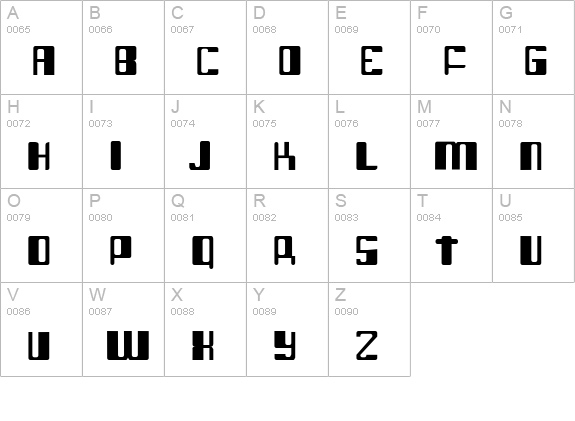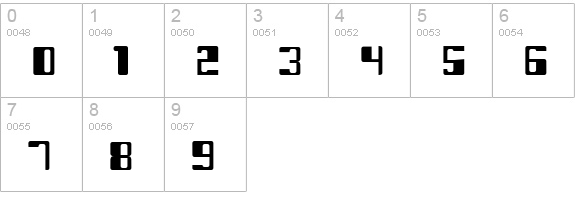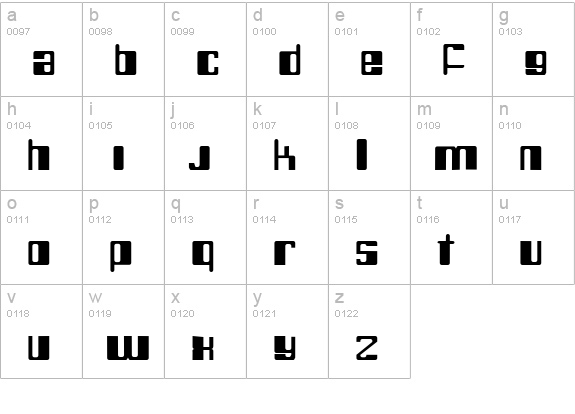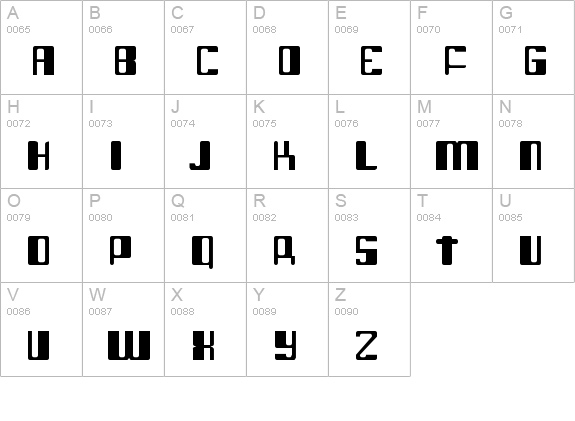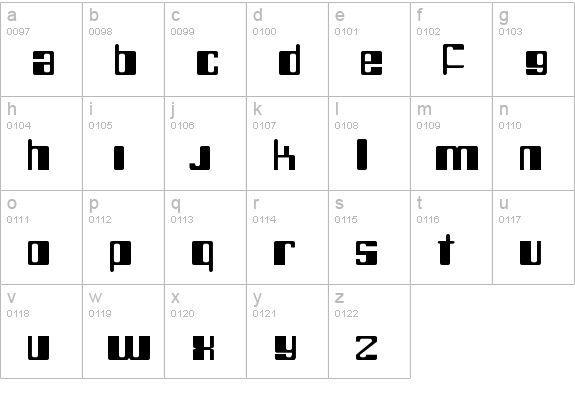
Robotic Monkey 1 Font Details
Robotic Monkey 1 font is a playful and futuristic typeface that brings a unique robotic twist to your designs. This font features sleek lines and sharp edges, giving it a modern and dynamic look. Perfect for projects that require a touch of innovation and creativity, Robotic Monkey 1 font is sure to make a statement. Best of all, Robotic Monkey 1 font is available for free download at FontsMarket.com, making it easily accessible for designers and creators looking to add a bold and futuristic touch to their work. Whether you're designing posters, logos, or web graphics, this font will elevate your projects and set them apart from the rest. Download Robotic Monkey 1 font today and unleash your creativity!